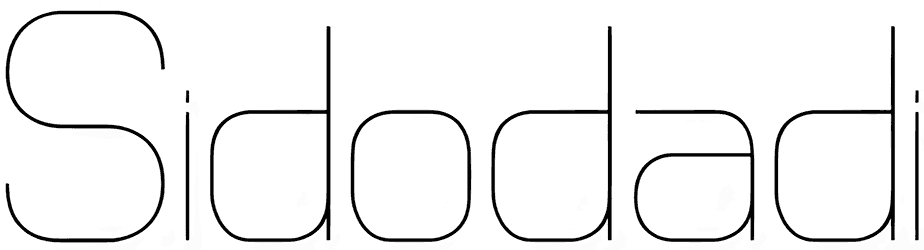
Sidodadi Font
Sometimes, having a delicate and minimal face will be the perfect selection to capture your audience, and this thin font is able to do it. With this square font, words will be modern and fashionable. We offer to set the…
Sometimes, having a delicate and minimal face will be the perfect selection to capture your audience, and this thin font is able to do it. With this square font, words will be modern and fashionable. We offer to set the Sidodadi font on your new layouts, such as an Instagram post for a stationery product, and see the feedback.
Sidodadi is a cool and modern look styled sans serif font. Add it confidently to your projects, and you will love the results. The only limit is your imagination. Try this now